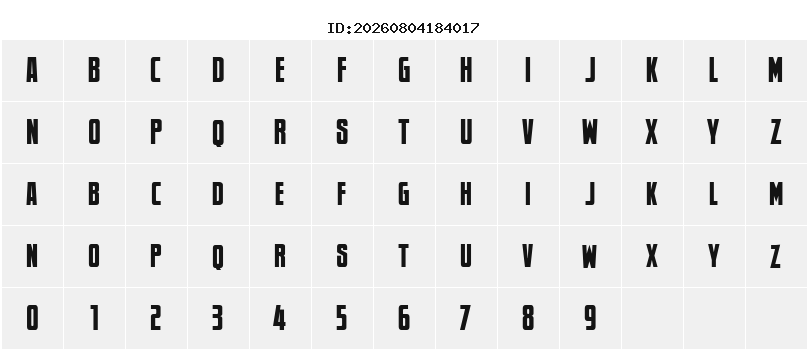
• Font Name: Newsflash BB
• Full Font Name: Newsflash BB
• Designer: Nate Piekos - Blambot.com
• Manufacturer: Nate Piekos - Blambot.com
About Newsflash BB.ttf
Newsflash BB.ttf is a modern, elegant sans-serif font designed for ultimate readability and visual harmony. Perfect for branding, headlines, web design, and print materials.